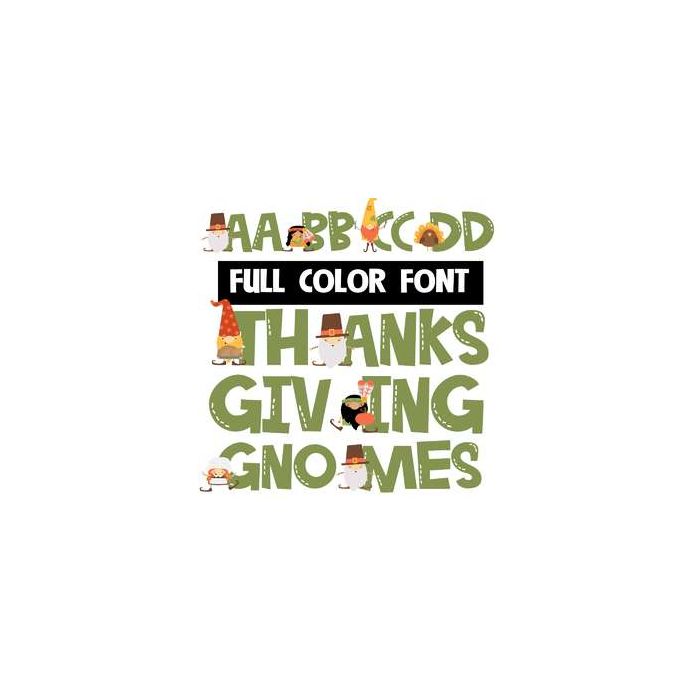
This full-color font features little Thanksgiving gnomes on the uppercase. This font works best for titles, displays, posters and more. Please note color fonts will show as black in non compatible programs. This font type is compatible with Silhouette Studio.